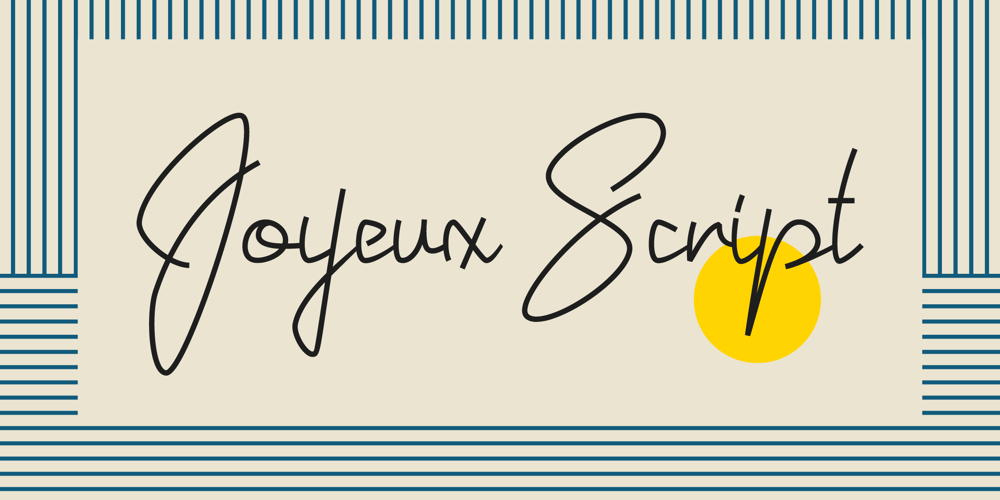
Joyeux Script Font Family was designed by Elyas Beria and published by Elyas Beria. Joyeux Script contains 2 styles and family package options. Is it modern, is it retro? Is it flowing, is it angular? It’s all of these and more. Elegant and sophisticated, Joyeux© Script is a multilingual typeface in two weights that is perfect for any project that requires a touch of refinement, from invitations, labels, greeting and wedding cards, packaging, fashion, and logos to book covers and magazines.Includes: uppercase & lowercase regular and bold numbers and punctuation multilingual characters alternates ©2023